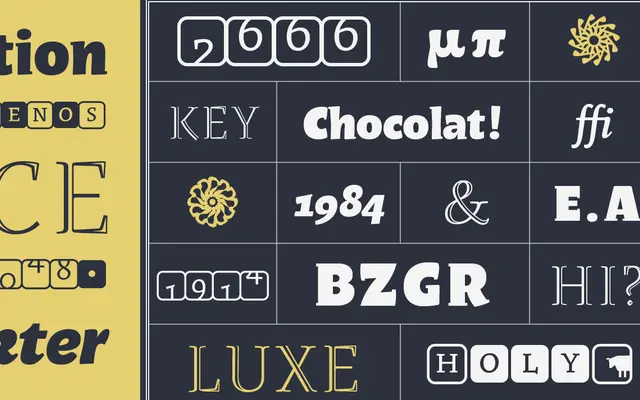
Rayuela Display
Pampatype · Alejandro Lo Celso · 2001
A four-style display family by Alejandro Lo Celso ranging from an elegant openface with Tuscan serif echoes to an ultra-black cursive, awarded at TDC 2006 and ATypI 2001.
Rayuela Display is the companion series to Rayuela Text, designed for expressive, relaxed typographic uses. Rayuela Luz is an openface with open stroke endings that give it a half-Tuscan character; Rayuela Miscelánea is a puzzle-inspired font with jumping figures evoking hopscotch and contemporary fleurons in the caps; and Rayuela Chocolate is an ultra-black cut offered in roman and cursive. The family covers Basic Latin with OpenType features including oldstyle figures, standard ligatures, hopscotch figures and fleurons.
A highly ornamental family spanning an openface inline (Luz), a dingbat/puzzle variant (Miscelánea), and an ultra-black roman and italic (Chocolate), all firmly in the decorative display category with no body-text intent.